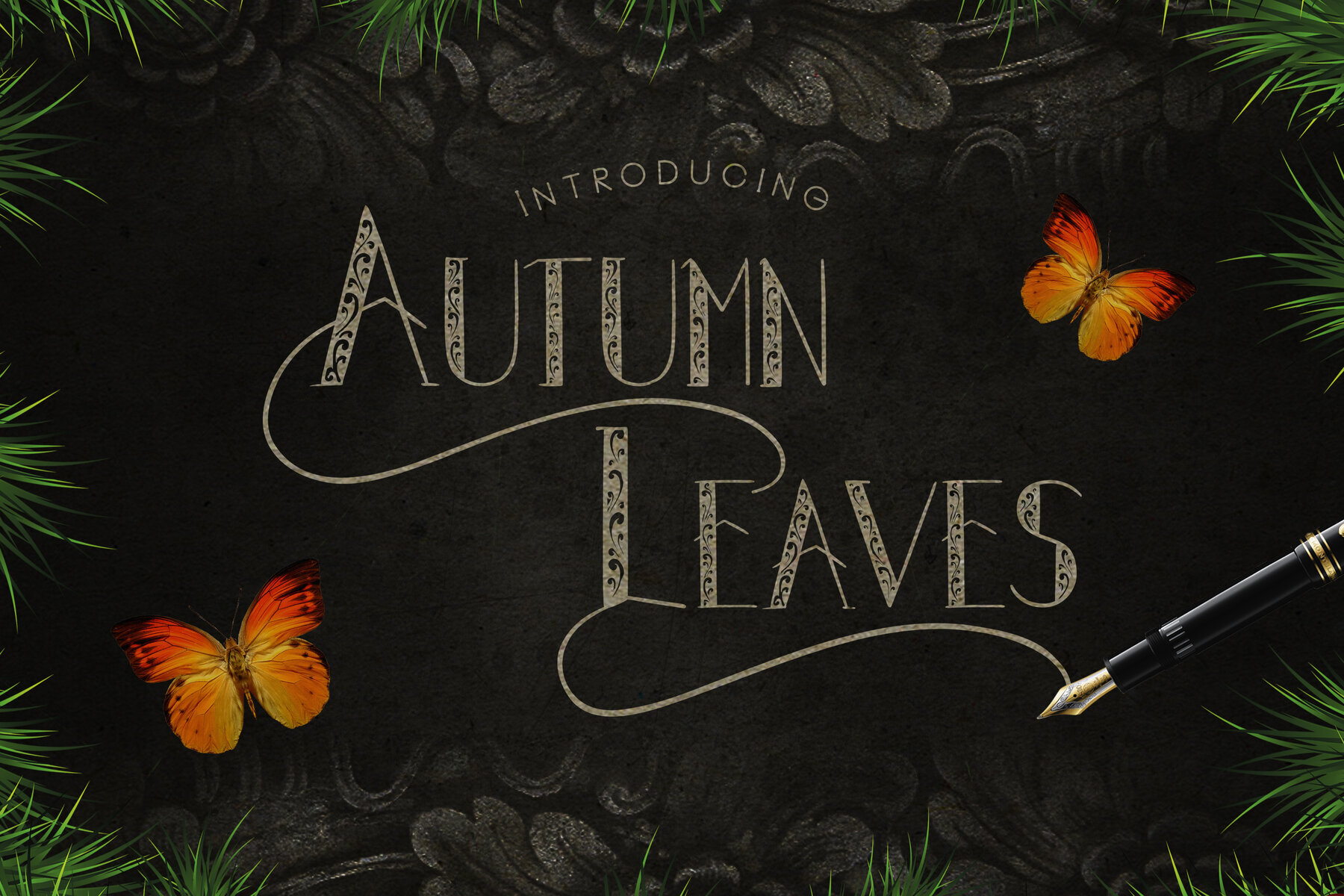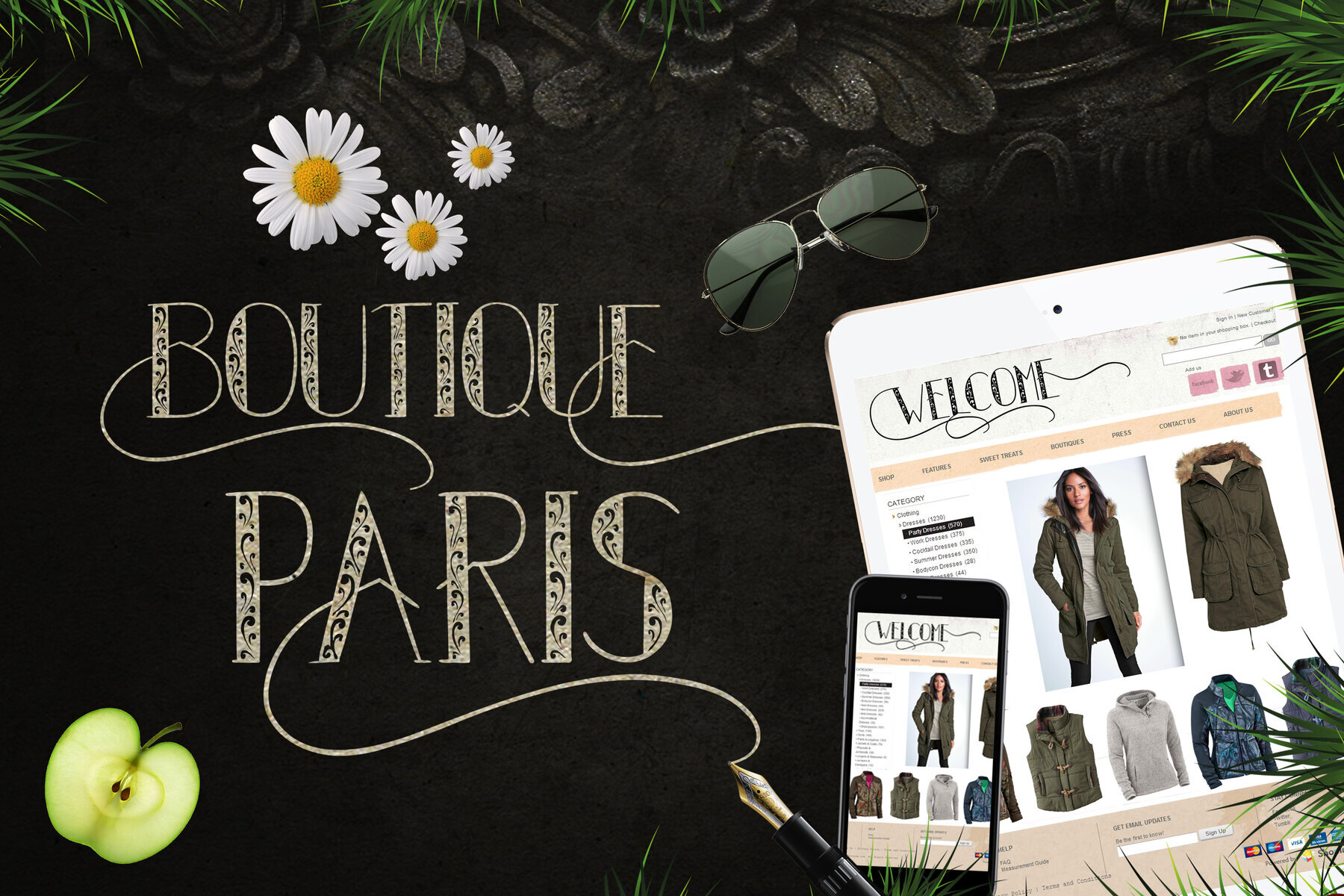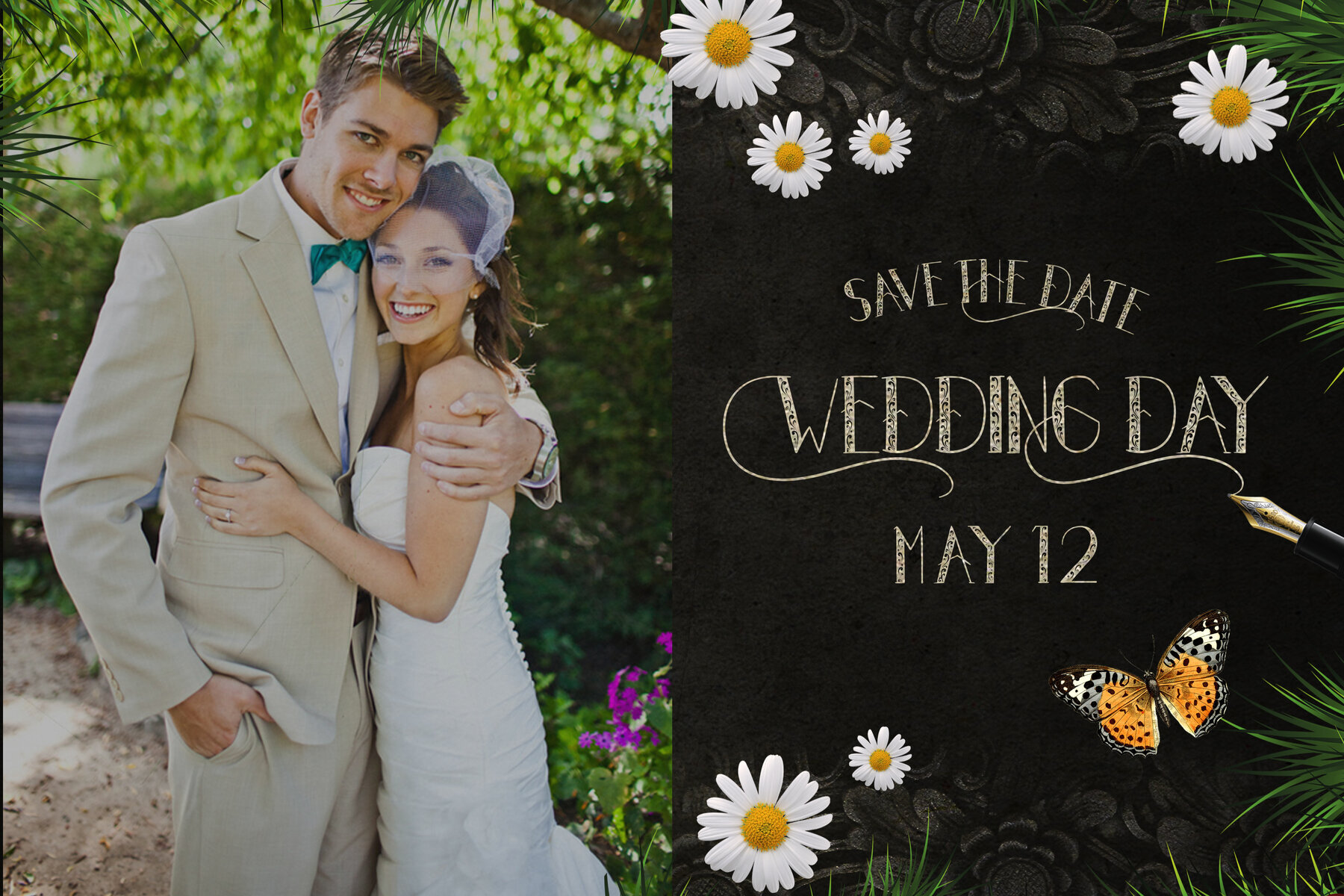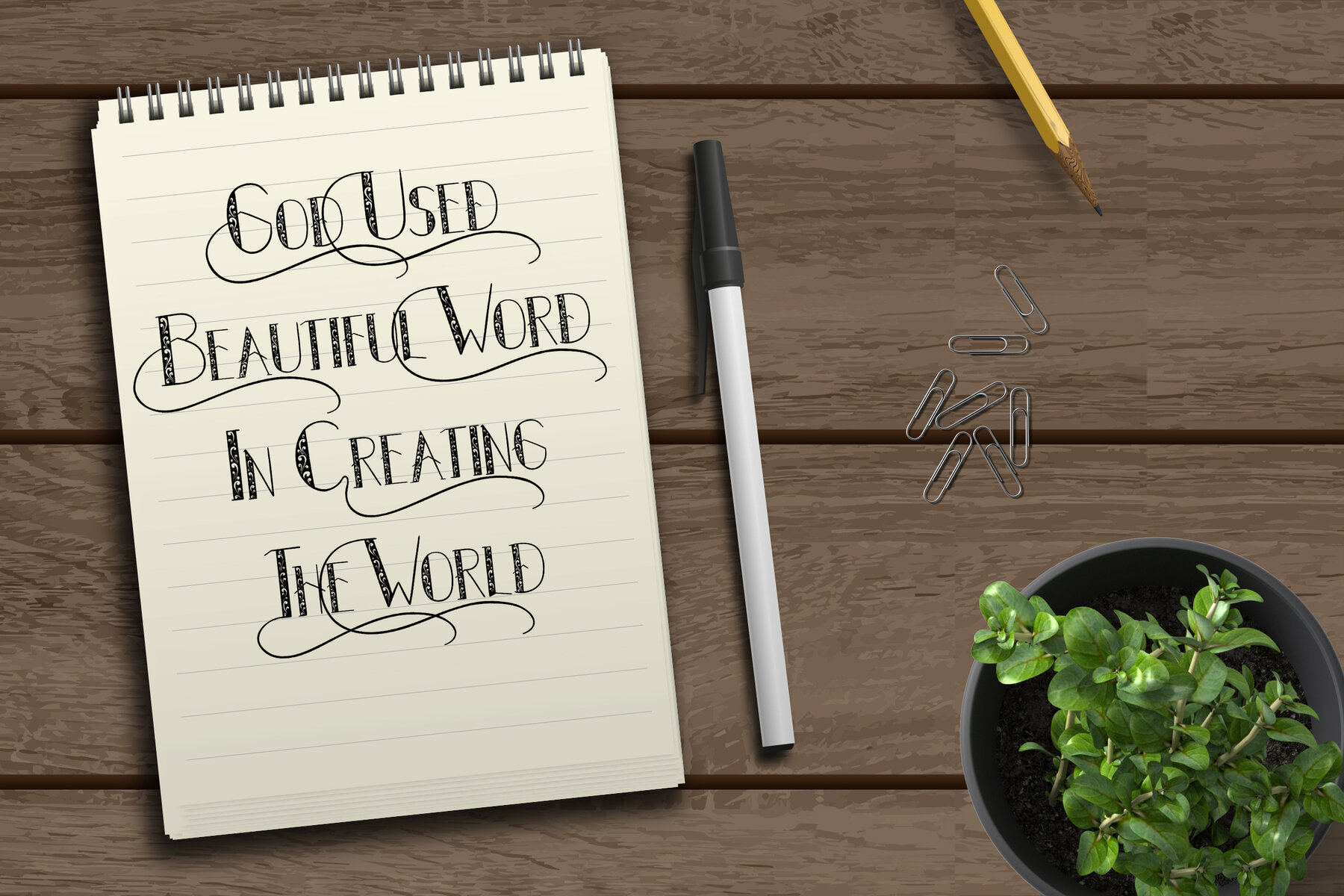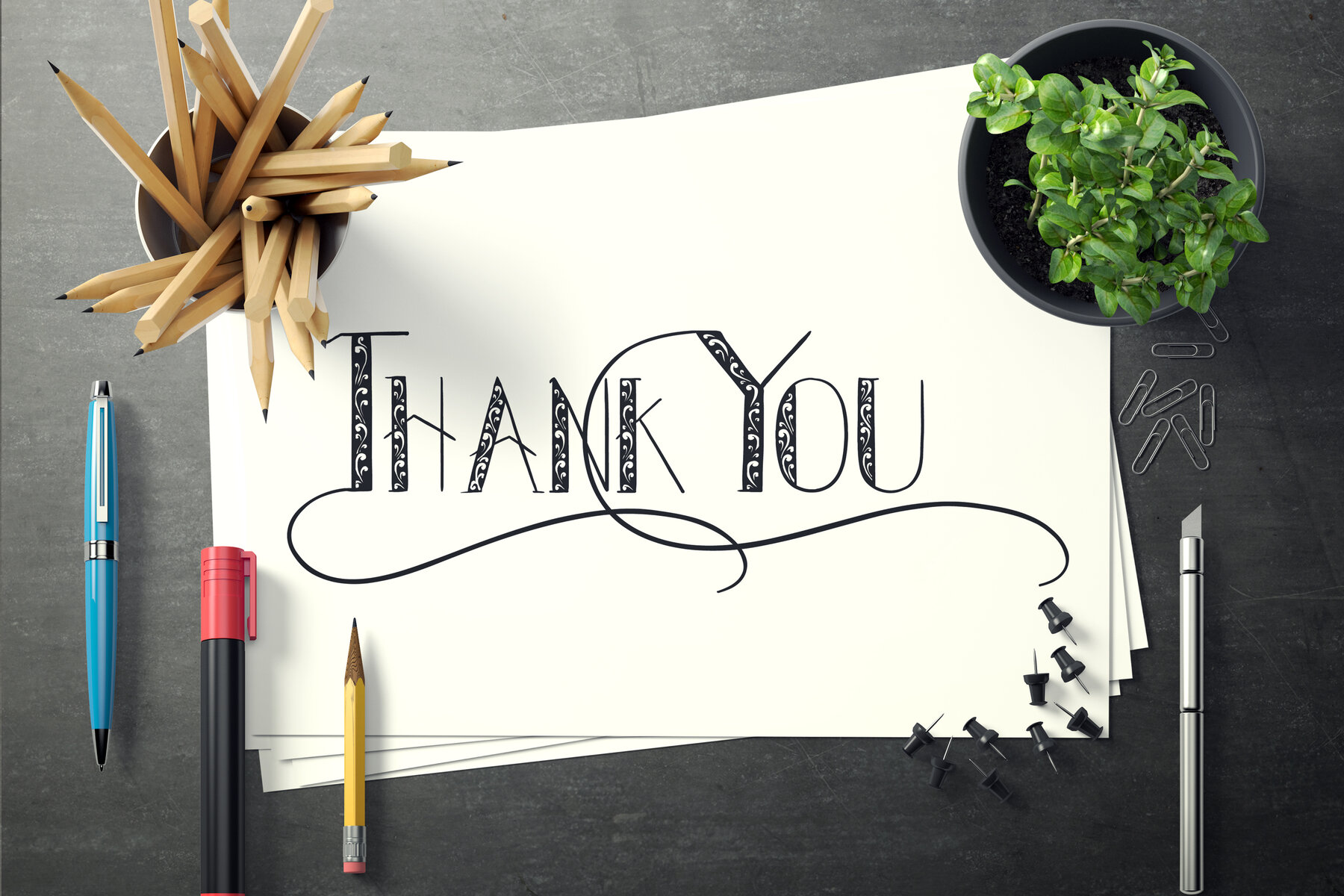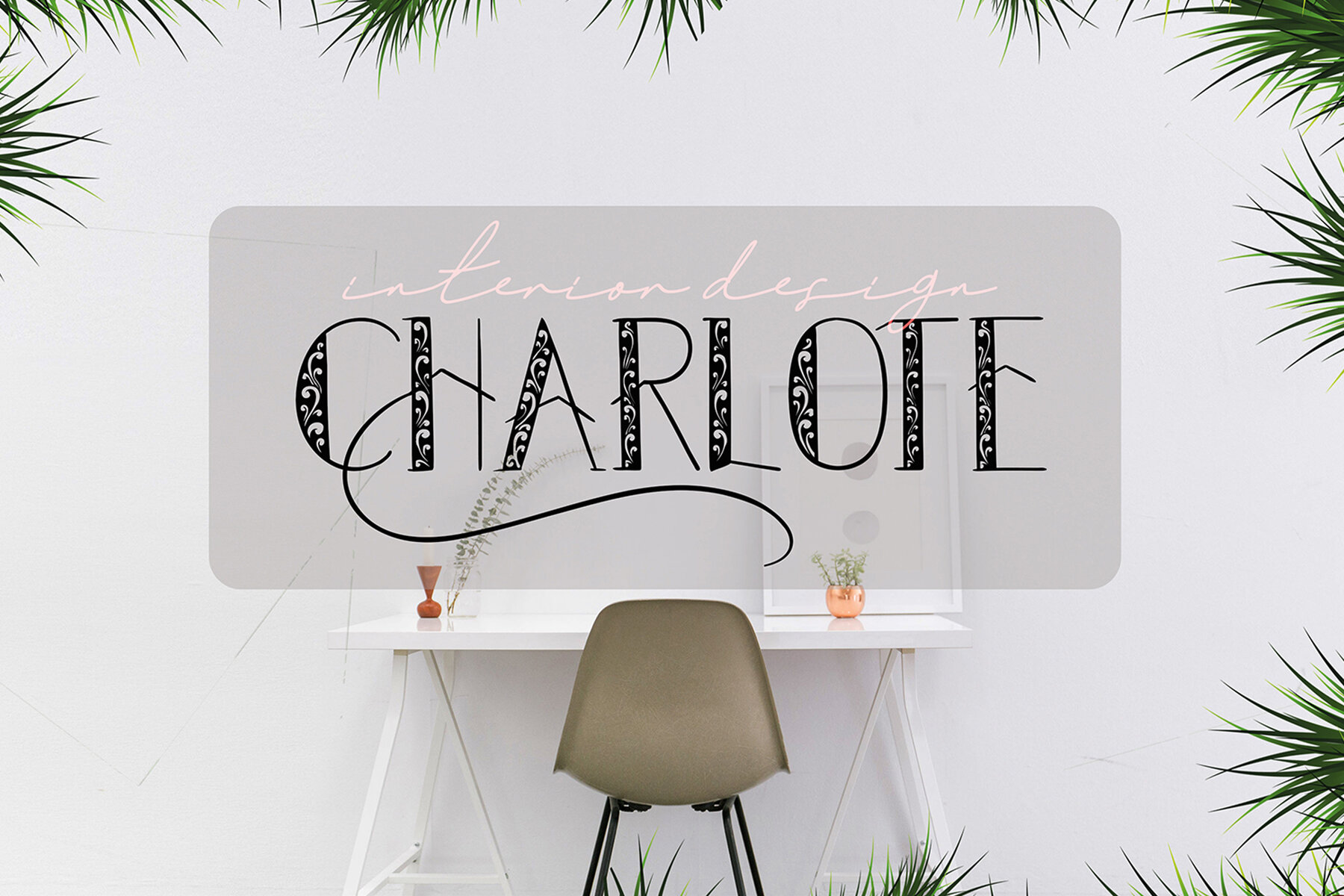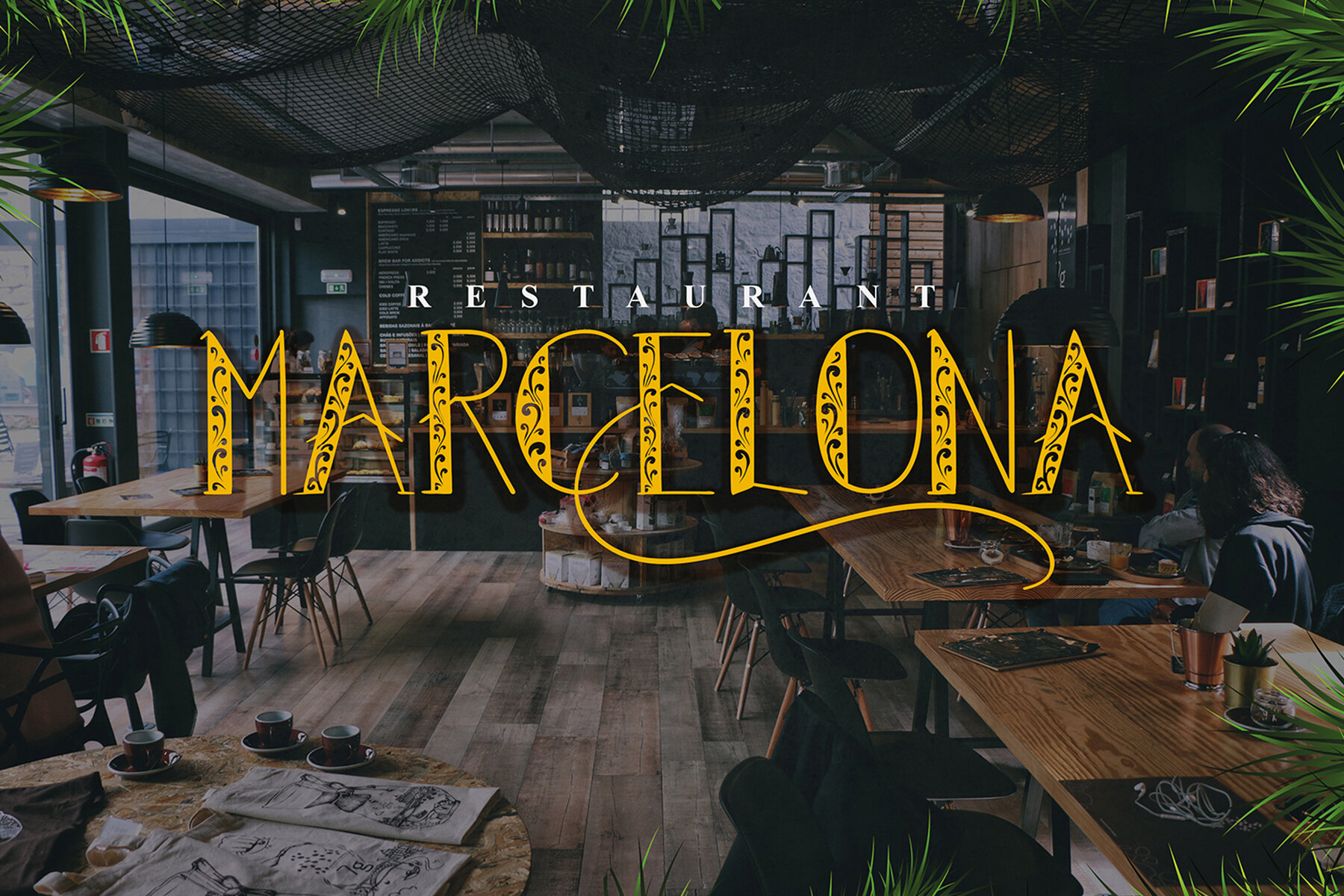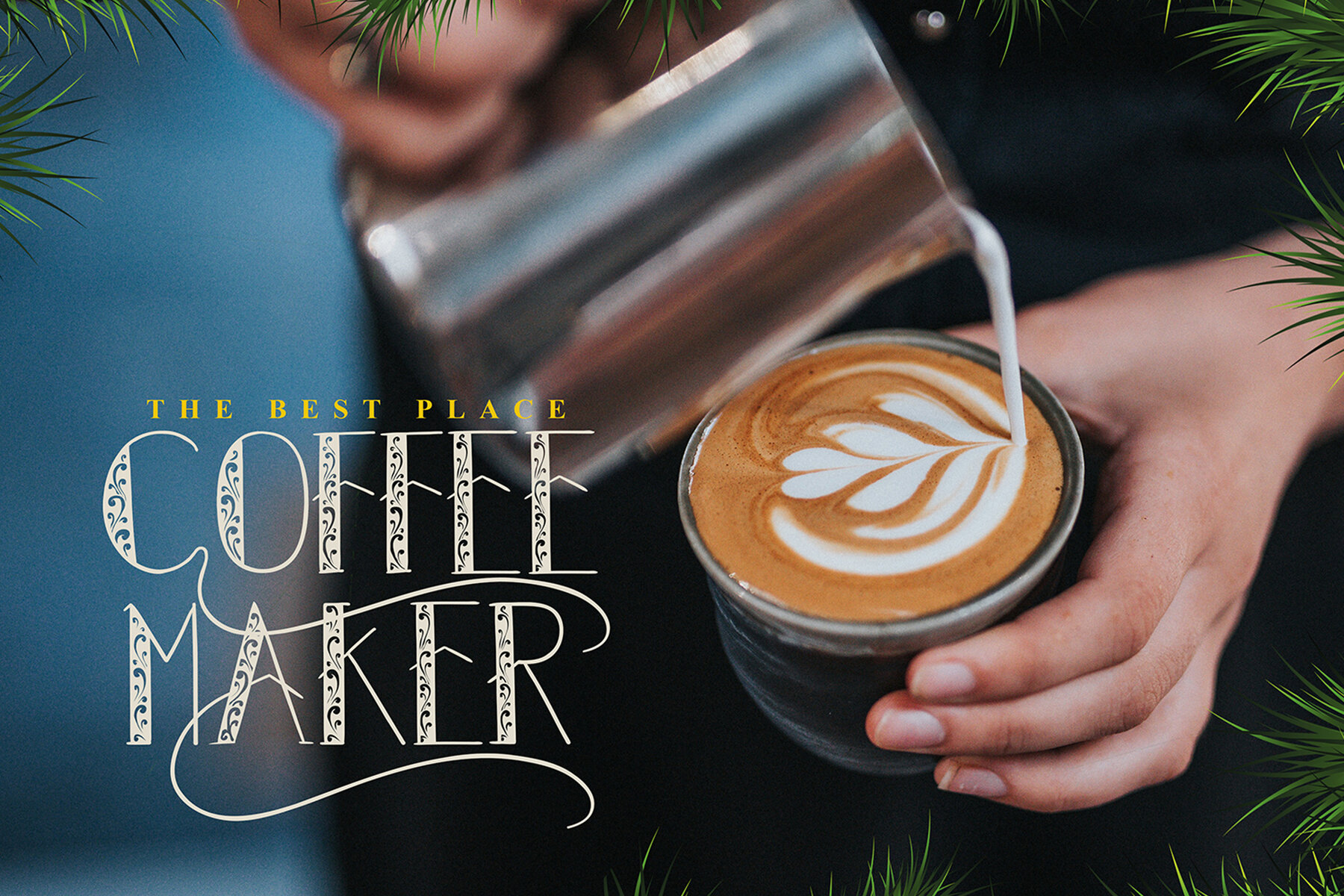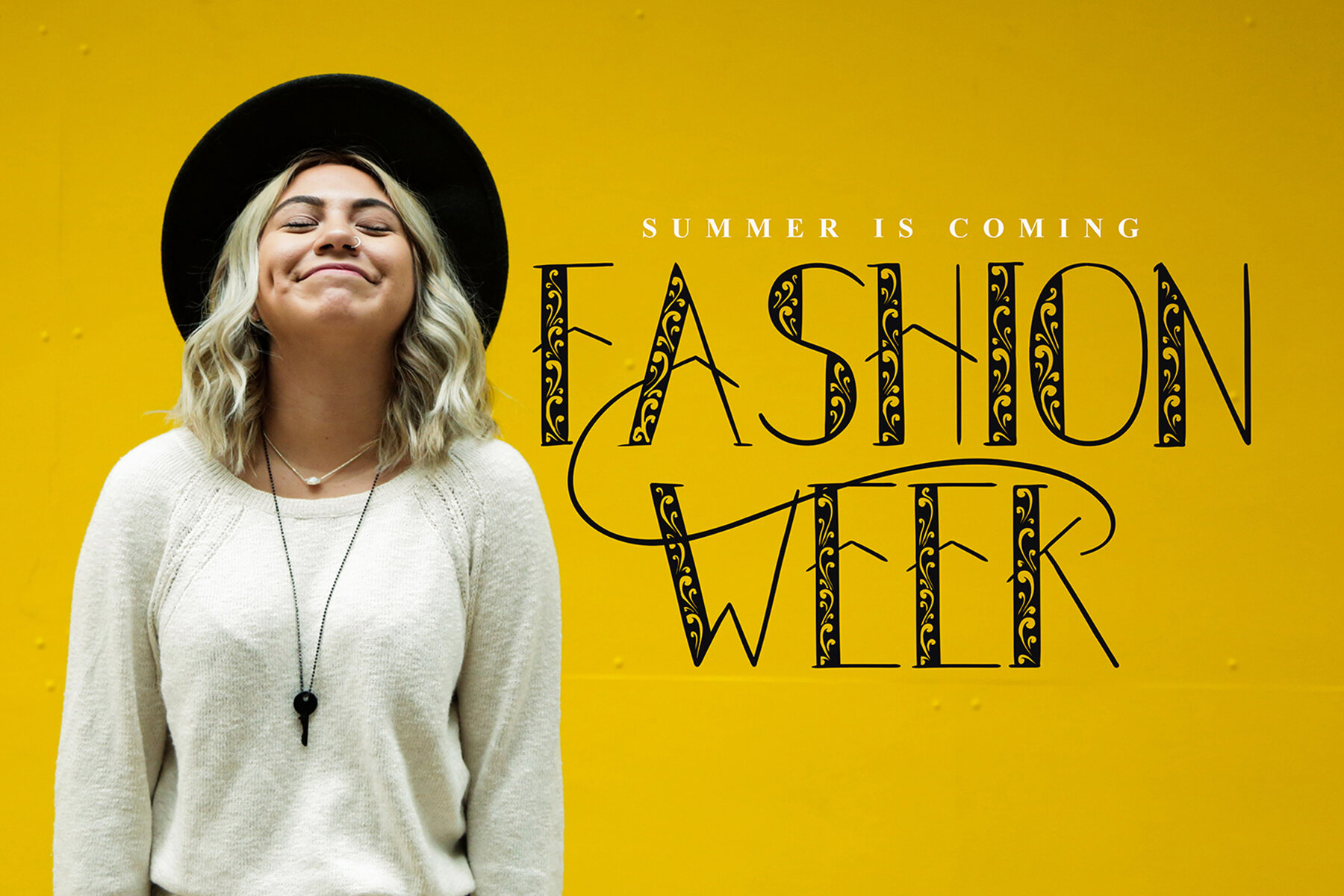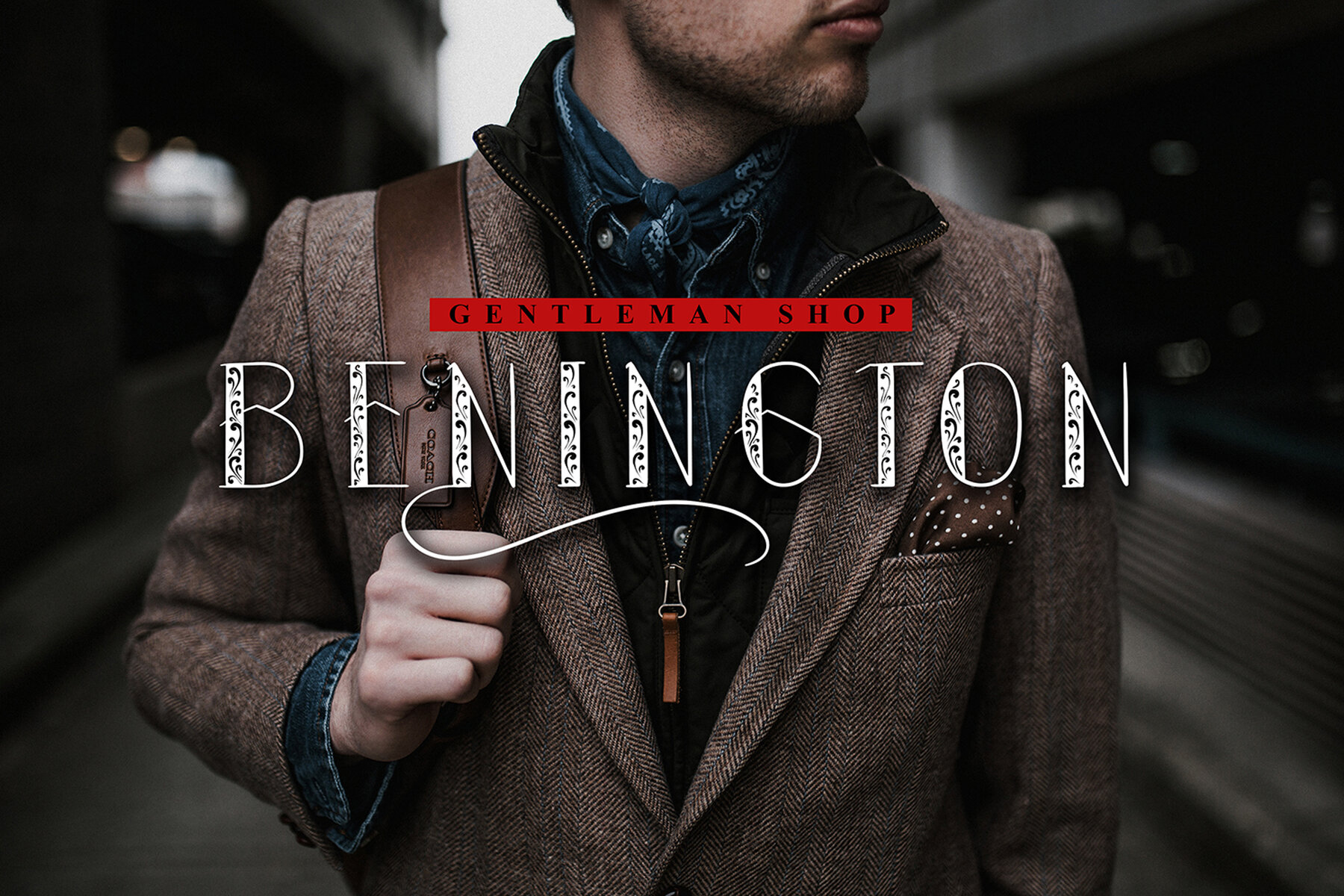
Autumn Leaves Font
Autumn Leaves
Autumn Leaves italic
Autumn Leaves stands as a vintage typeface that captures the essence of classic styles and old-world charm. Enchant your projects with its beautiful swashes that add a touch of nostalgia and elegance to any design. CompatibilityAutumn Leaves: A Vintage Typeface Inspired by Tradition